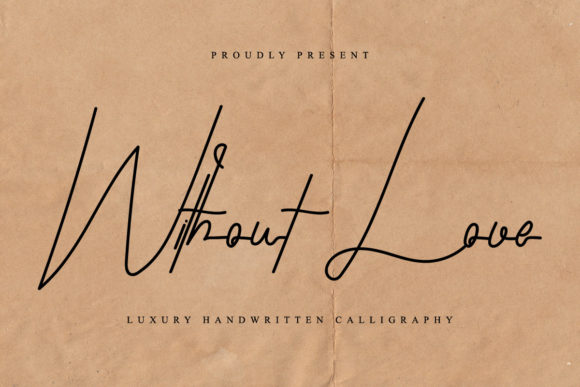
Unveil the elegance and allure of Without Love, a captivating script font that will transform your creative visions into masterpieces. Its delicate strokes and graceful curves evoke a sense of romance and charm, adding a touch of sophistication to your designs. Immerse yourself in the beauty of this extraordinary font and let your imagination soar.
Without Love is the perfect choice for crafting heartfelt messages, personal branding, and invitations that leave a lasting impression. Its versatility extends to a wide range of projects, including logos, social media graphics, and website designs. With its ability to evoke emotions and create a lasting impact, Without Love is the key to unlocking your creative potential.
As a font specifically designed for credit card designs, Without Love offers a unique blend of elegance and functionality. Its clear and legible characters ensure that important information is conveyed with utmost precision, while its stylish appearance adds a touch of exclusivity to your cards. Elevate your credit card designs and make a statement that reflects your brand's personality.